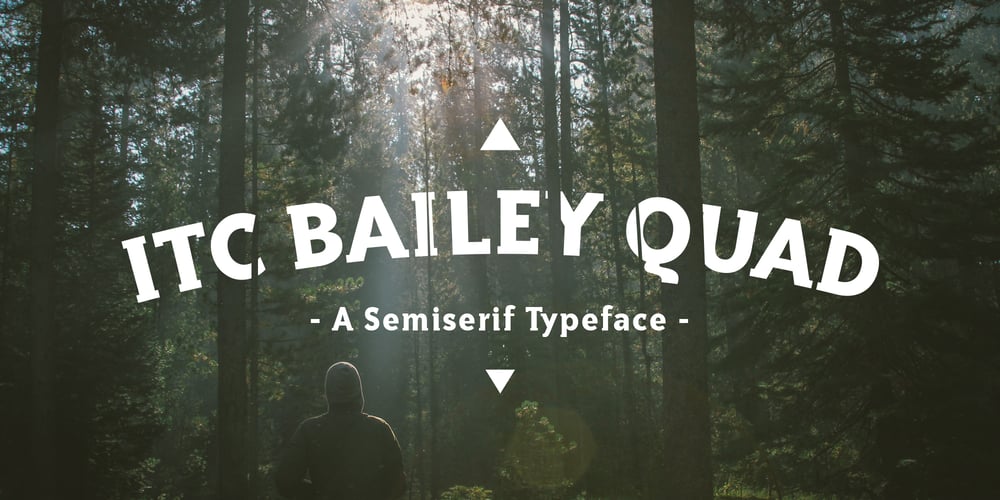
ITC Bailey Quad
ITC Bailey Quad font
ITC Bailey Quad Font Family was designed by Kevin Bailey and published by ITC. ITC Bailey Quad contains 1 styles and family package options. ITC Bailey Quad Bold was designed by Kevin Bailey in 1994. It is a semiserif typeface in the style of slab serif faces. The unusual placement of some serifs and unconventional forms of some characters give the font a modern feel. The overall look of Baily Quad Bold is robust and strong and the font is best used in headlines and short to middle length texts in point sizes of 12 and larger.